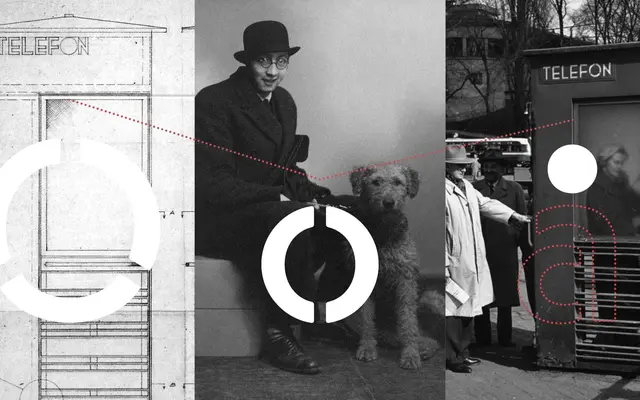
Riks
Monokrom · Sindre Bremnes and Frode Helland · 2017
A stencil typeface by Sindre Bremnes and Frode Helland, derived from lettering on Georg Fredrik Fasting's iconic 1932 Norwegian telephone kiosk.
The letterforms originate from seven characters on Fasting's Riks phonebooth, a landmark of Scandinavian Functionalist architecture, with the stencil logic extended across the full character set by Bremnes and Helland. Two styles are offered: Normal for general use and Negativ, which provides master drawings suited to producing physical stencils capable of reproducing any text. Monokrom offer the fonts free of charge, framing the design as Norwegian cultural heritage, while physical water-cut steel stencils at 200 points are available on loan for Norwegian customers.
Riks is a stencil typeface derived from lettering on a 1932 Functionalist telephone kiosk, with stencil logic applied across the full character set in two variants, Normal and Negativ.